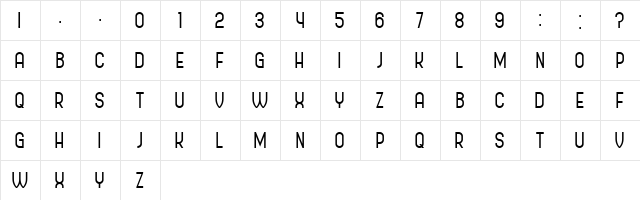
Policemen Regular
Design Context for Policemen Typeface
Policemen offers clean, dependable letterforms without strong stylistic allegiance, making it a practical choice for designers who need flexibility.
Pro Tip: Use Policemen in both headline and body roles to test its range before committing to a single application.